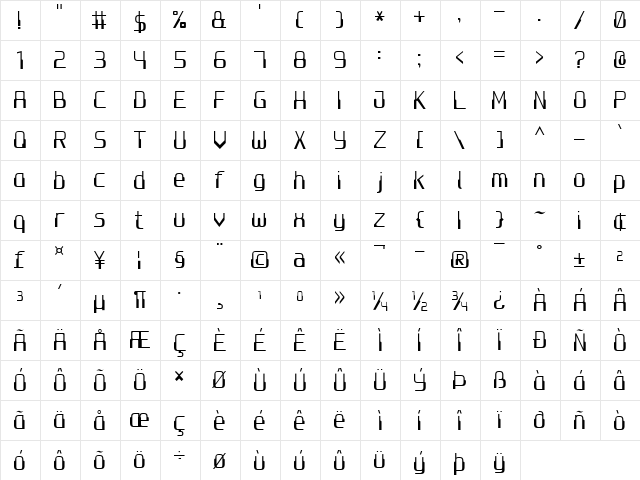
Computer 7 Regular
| Foundry | Style-7 |
| Designer | Sizenko Alexander |
Design Context for Computer 7 Typeface
Computer 7 takes a measured approach to typography — its balanced proportions and neutral character make it a reliable workhorse for both digital and print work.